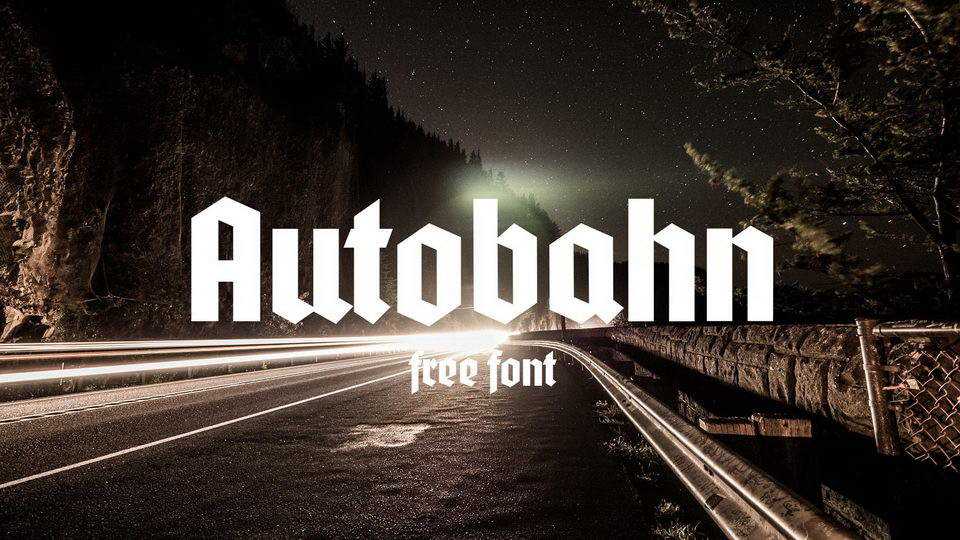
Download Autobahn is a hard, edgy, straight-lined, like concrete slabs, that’s what they are, the so-called plain Gothic typefaces. This font suits for logo and branding, headlines, posters, prints and much more.